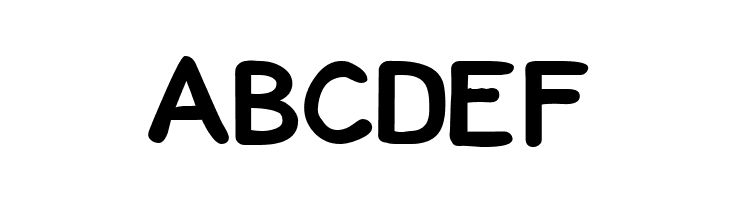
Gomez Strikes Again! Font
- Font: Gomez Strikes Again!
( Fonts by Press Gang Studios - Andeh Pinkard - www.pressgang-studios.com )
A bold, playful font with a hand-drawn, informal style.